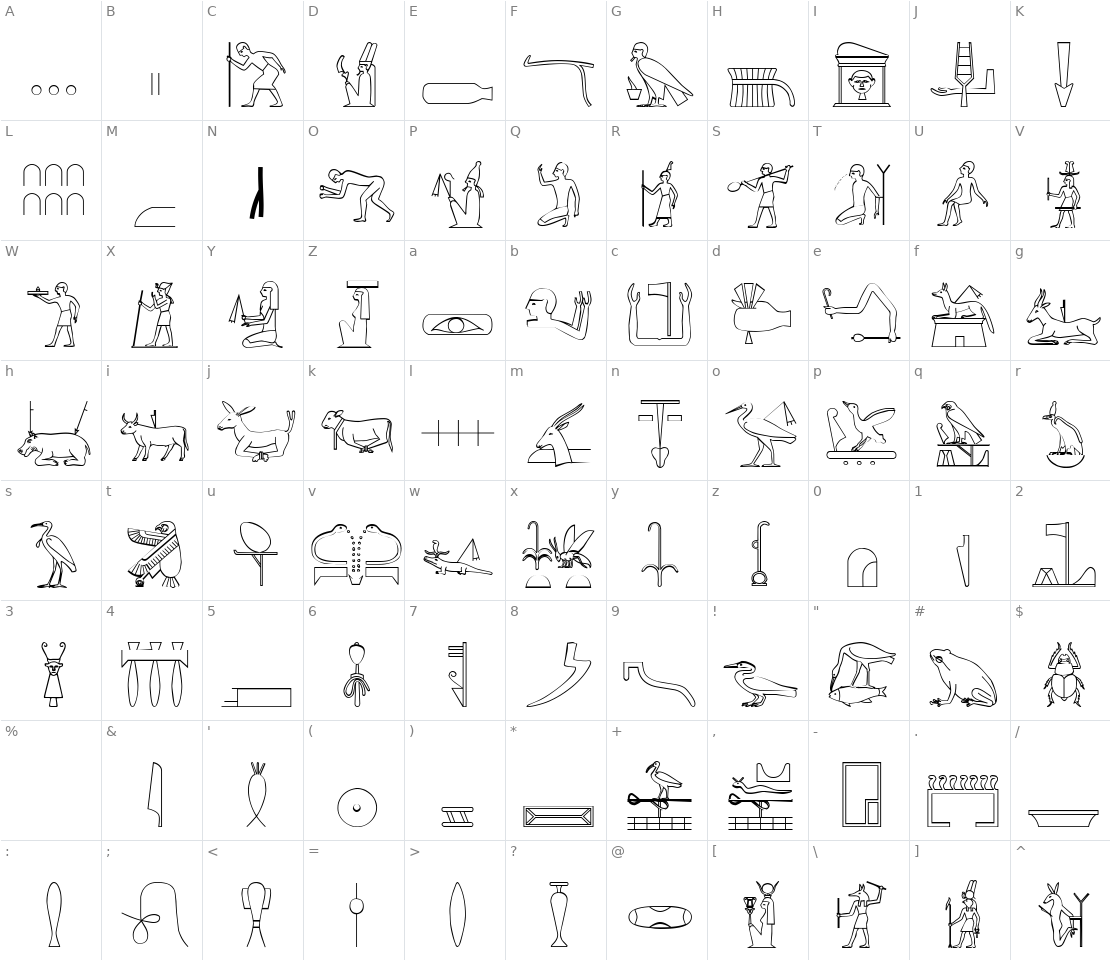
The Nile Song
The Nile Song is a decorative symbol font from Intellecta Design that replaces standard characters with Egyptian hieroglyphic-style icons. Rather than functioning as readable text, it serves as a set of ancient Egyptian pictographs, useful for themed design work, educational materials, museum graphics, or adding authentic-looking hieroglyphic detail to historically inspired projects. The glyphs have a clean, engraved quality that keeps them legible even at smaller sizes.